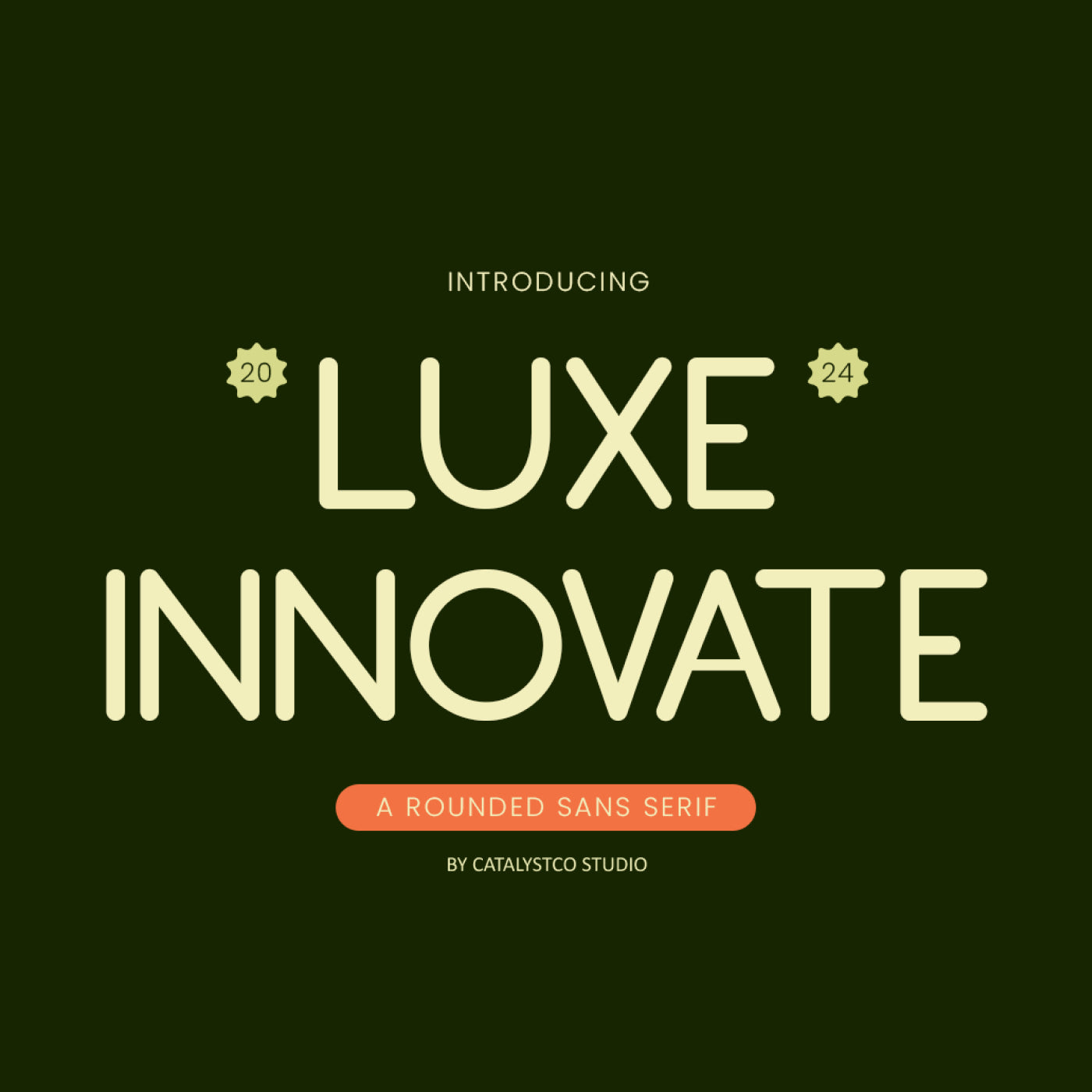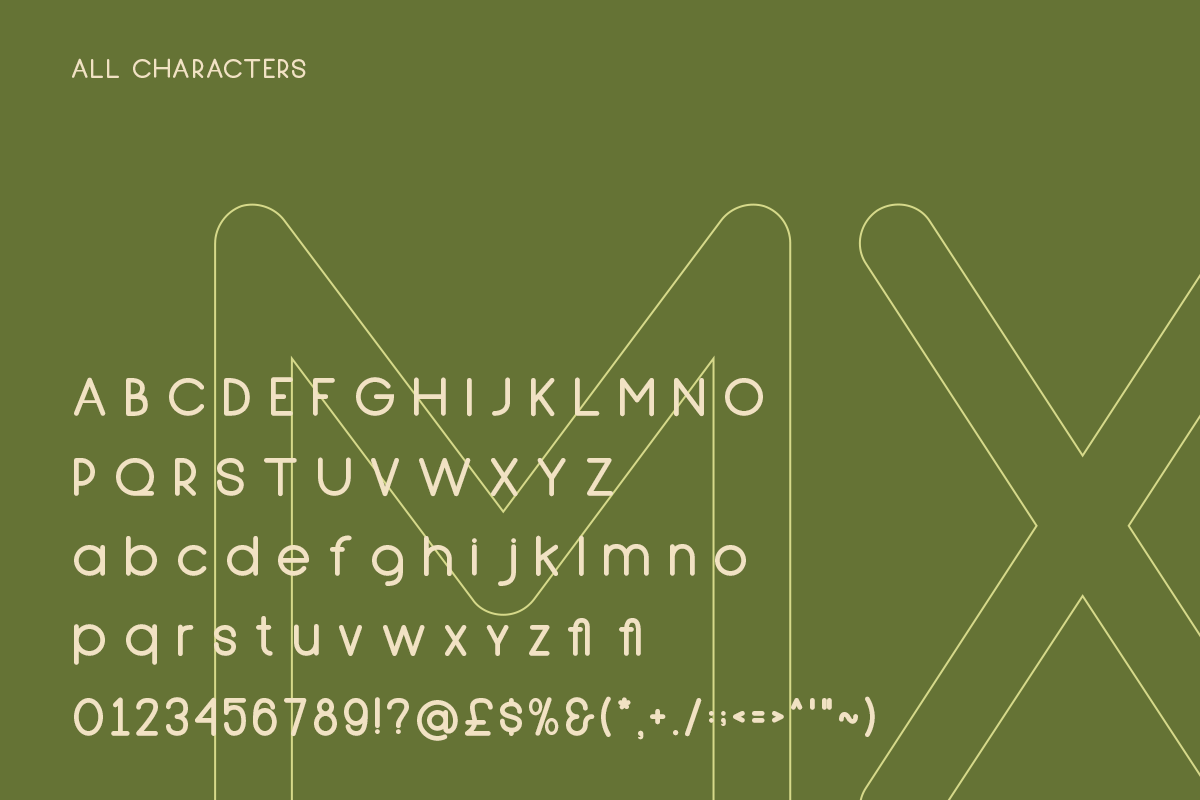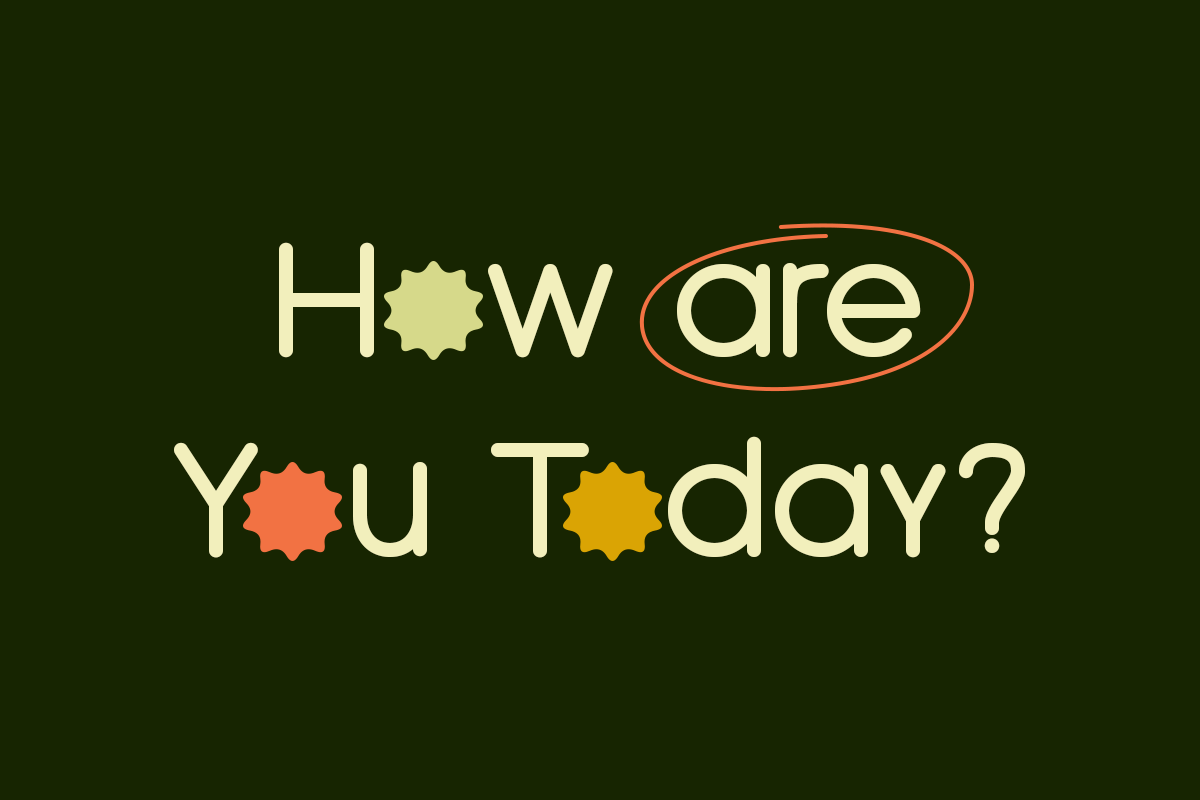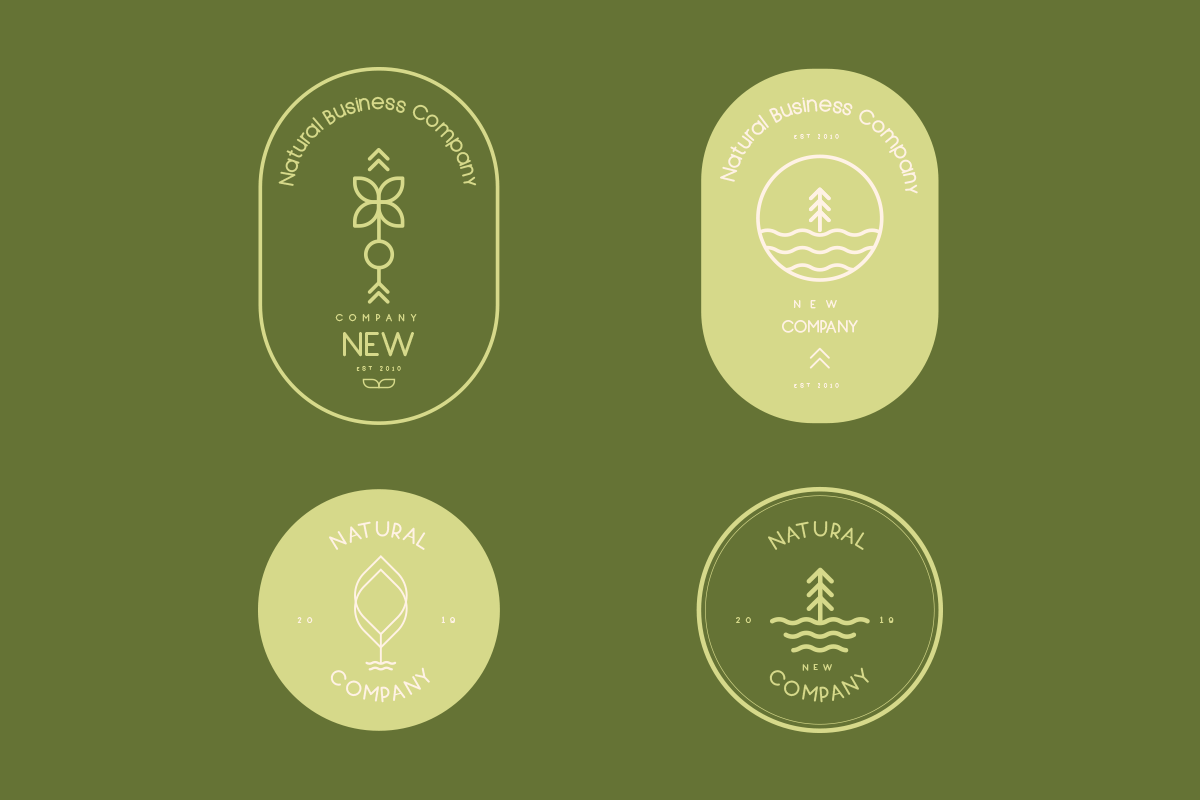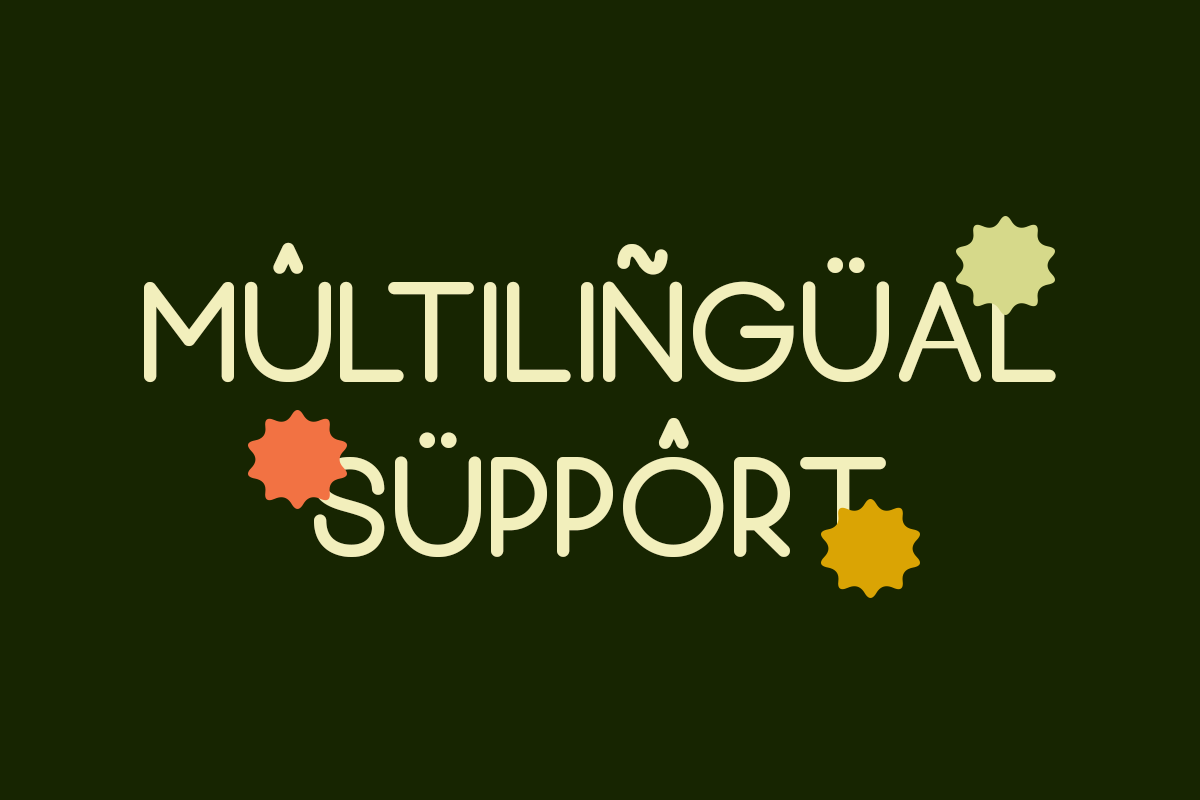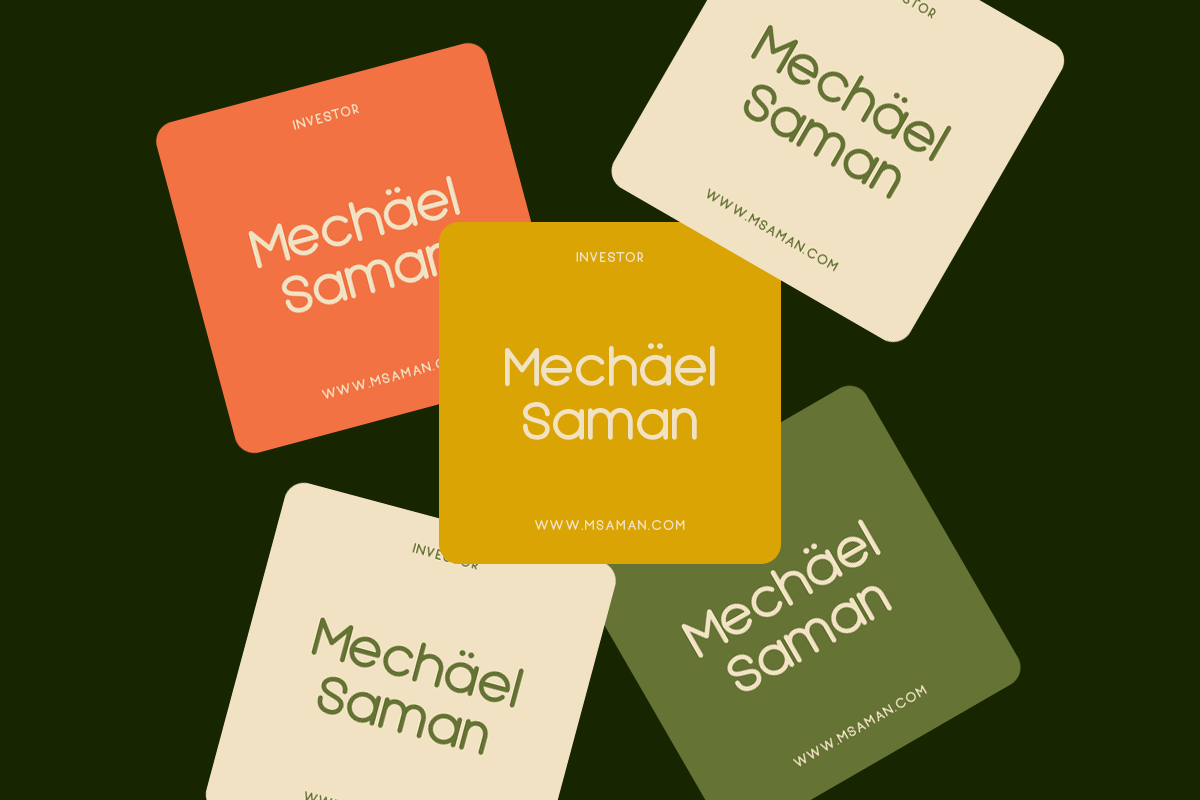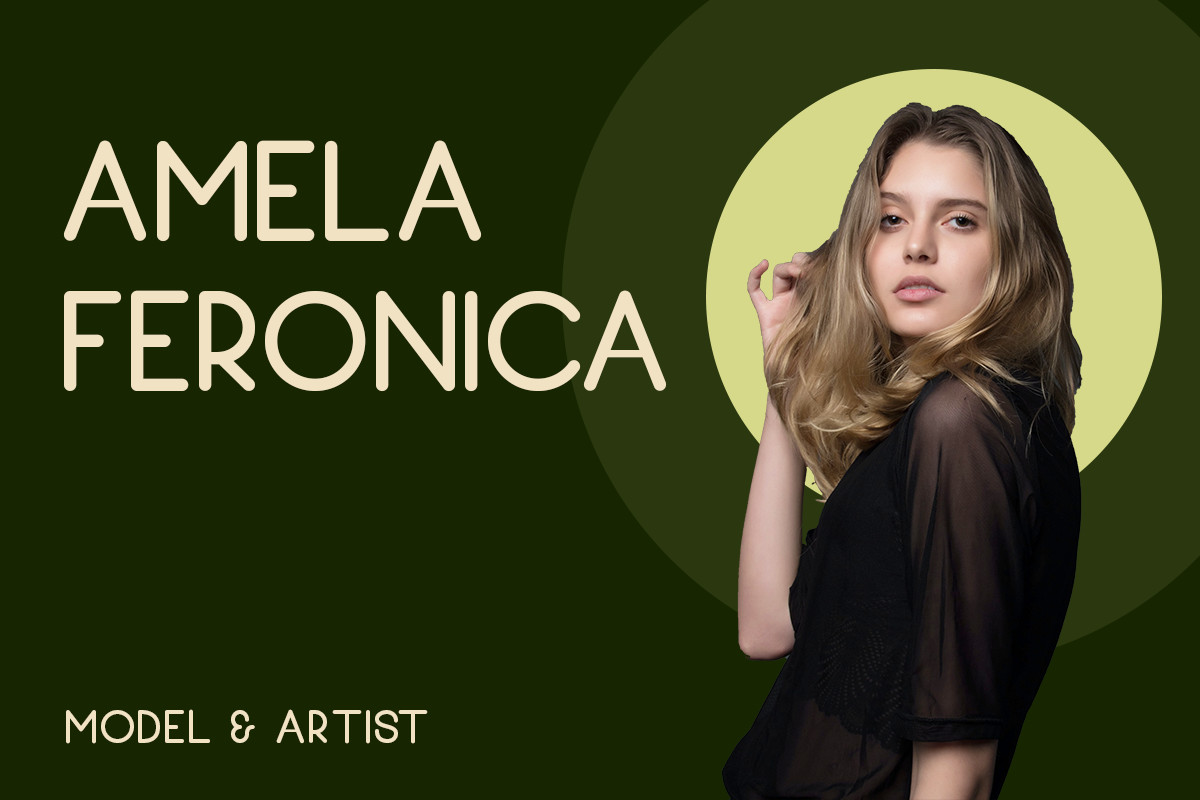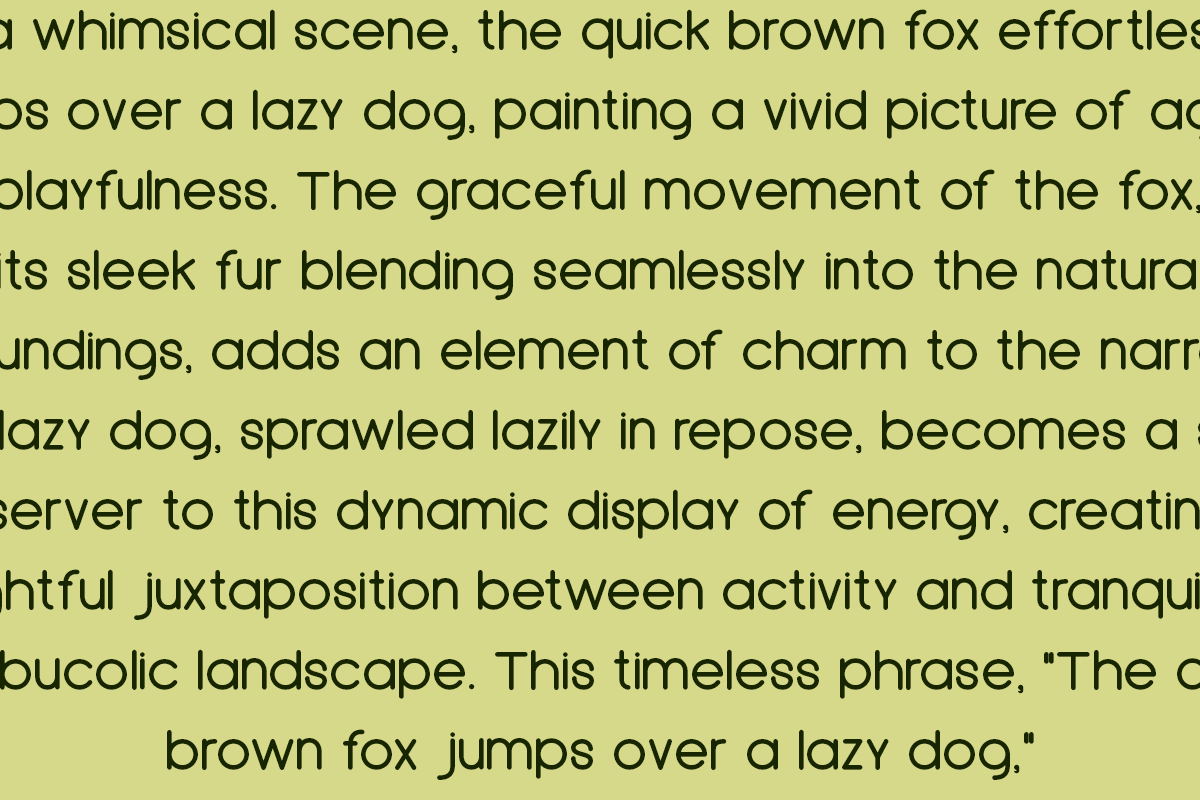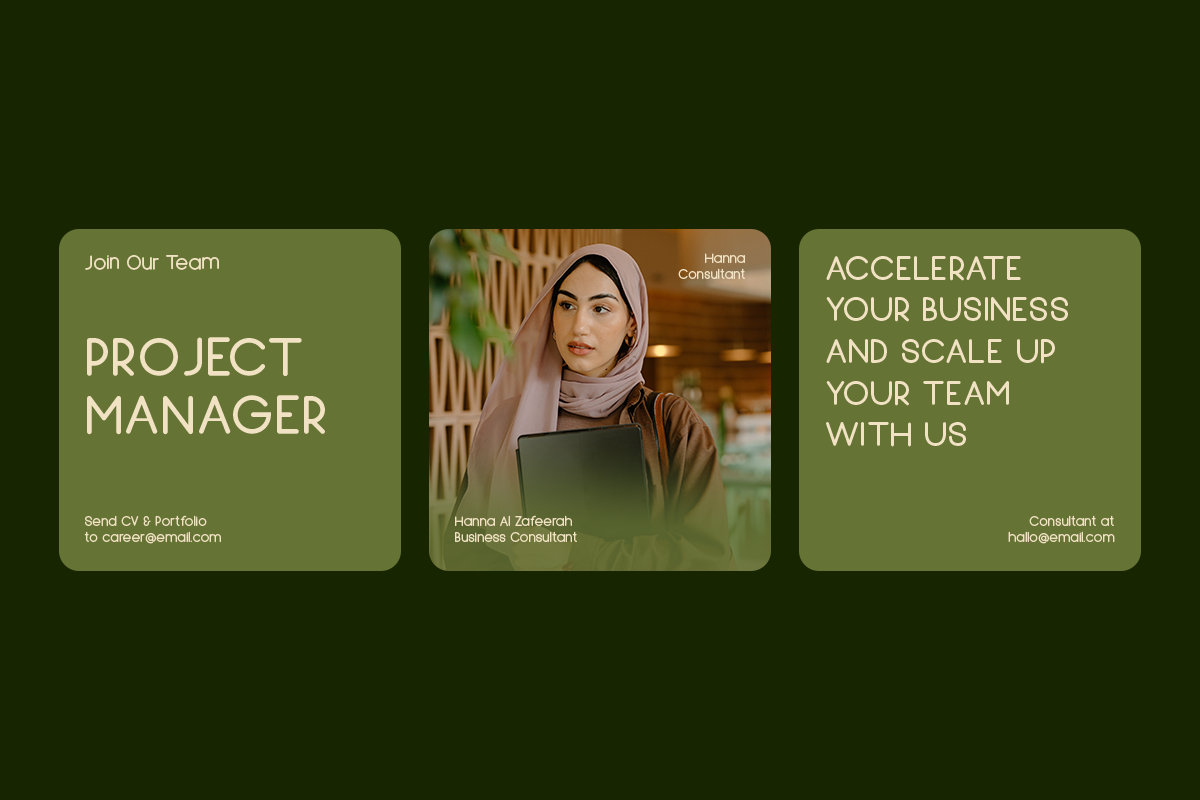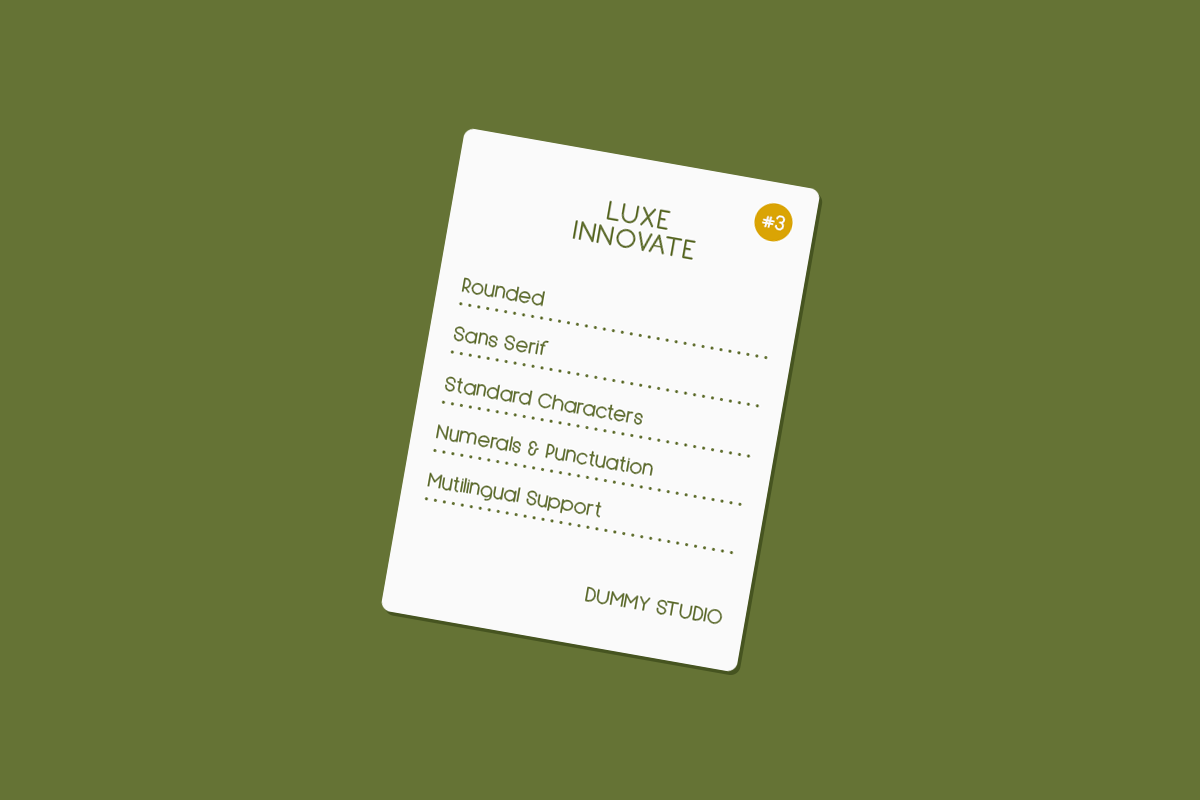
Luxe Innovate Rounded Sans Serif Font
Luxe Innovate Sans Serif is a modern rounded sans serif font featuring smooth curves, clean geometry, and a soft contemporary aesthetic. Its friendly character shapes and balanced proportions make it ideal for branding, packaging, digital interfaces, social media visuals, and minimalist lifestyle projects. Designed with gentle rounded edges and a refined structure, Luxe Innovate brings warmth, clarity, and modern elegance to any layout. Comes in OTF, TTF, and WOFF formats with complete characters, numerals, symbols, and punctuation.
Relevance and Use Cases is perfect for branding identities, product packaging, UI/UX layouts, social media posts, children-friendly graphics, minimalist campaign visuals, lifestyle branding, posters, and digital design systems that need a modern rounded look. Suitable for branding, packaging, UI/UX interfaces, posters, social media graphics, lifestyle branding, product labels, clean minimalist layouts, kid-friendly themes, and modern visual identity systems.
Luxe Innovate Rounded Sans Serif Font is a rounded sans serif typeface with smooth curves, uppercase and lowercase characters, numerals, punctuation, and multilingual support. It is available in OTF, TTF, and WOFF formats.